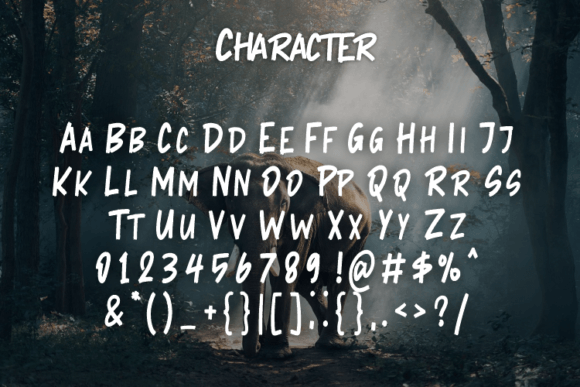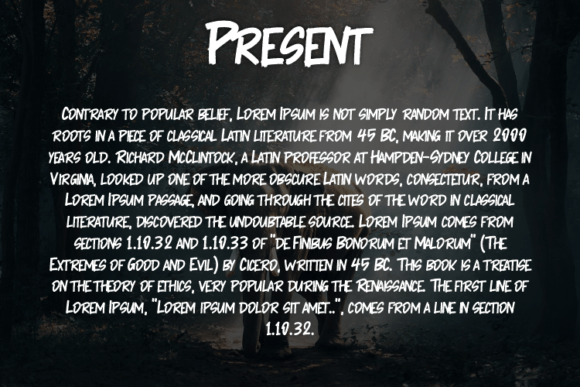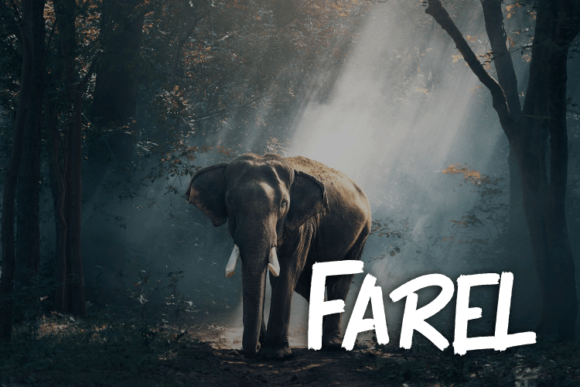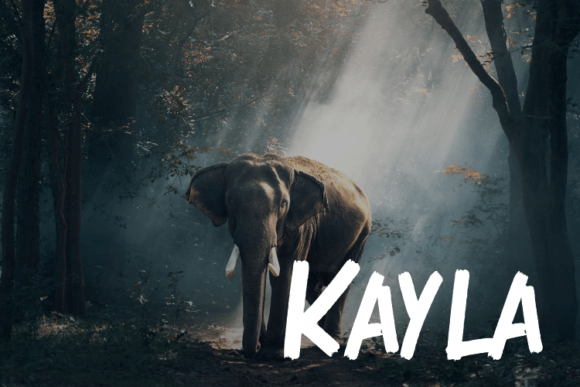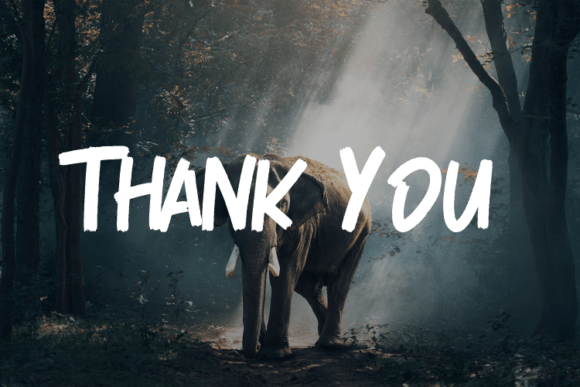
Have you ever been working on a design project and suddenly been struck by inspiration? You envision a beautiful, handwritten font that perfectly captures the essence of your brand or message. This was the moment when I first discovered the Beast War Font – a unique, bold script font that adds a touch of excitement and energy to any design.
Beast War Font is a versatile font that’s perfect for designers looking to add a bit of whimsy to their projects. Whether you’re creating a logo, a social media graphic, or a brochure, this font is sure to make a statement. But what makes Beast War Font so valuable to designers? Its ability to add a touch of personality and flair to any design, without overpowering the message or message.
Beast War Font Key Features
- Font Family: Beast War Font is a unique, custom-designed font family.
- Size: The font family includes a range of sizes from 12pt to 72pt, allowing for versatility in design.
- Resolution: Supports high-resolution displays, making it suitable for use in digital media and printing.
- Unique Characteristics: Beast War Font features bold, edgy lines and futuristic shapes, giving it a distinct and modern aesthetic.
- Character Count: The font family includes a comprehensive character set, covering a wide range of languages and symbols.
Beast War Font Review
I recently had the chance to work with the Beast War Font, and I wanted to share my honest thoughts on it. ✨ Here are some things that I think work well:
- Unique style: The Beast War Font has a distinctive, brutal style that’s sure to make your designs stand out.
- High contrast: The font has a great balance of light and dark elements, making it easy to read in both light and dark environments.
- Good for bold statements: If you need to make a bold statement or convey a sense of intensity, the Beast War Font is a great choice.
- May not be suitable for body text: While the font is great for headings and bold statements, it may be too overwhelming for large blocks of text.
- Not ideal for small sizes: The font’s thick lines and bold style can make it difficult to read at small sizes.
Overall, I think the Beast War Font is a great choice for designers who want to add some edge to their work. However, it’s not a one-size-fits-all solution, and you should use it judiciously to get the best results.
The Beast War Font is ideal for creating bold and edgy designs, especially in the gaming, sci-fi, and fantasy niches. To get the most out of it, experiment with different font sizes, colors, and styles to create a unique look. You can also pair it with other bold fonts to create a striking visual effect.
Fontin is more refined and elegant compared to Beast War Font, with a more even spacing and a larger x-height. It is also more versatile, making it suitable for a wide range of design applications.
Playfair Display is more ornate and luxurious compared to Beast War Font, with intricate details and a more classical feel. However, it can be overwhelming if used excessively, so it’s best to use it sparingly as an accent font.
Montserrat is a geometric sans-serif font designed by Julieta Ulanovsky. It is ideal for use in urban and modern designs, particularly in titles, headings, and body text where a clean and edgy aesthetic is desired.